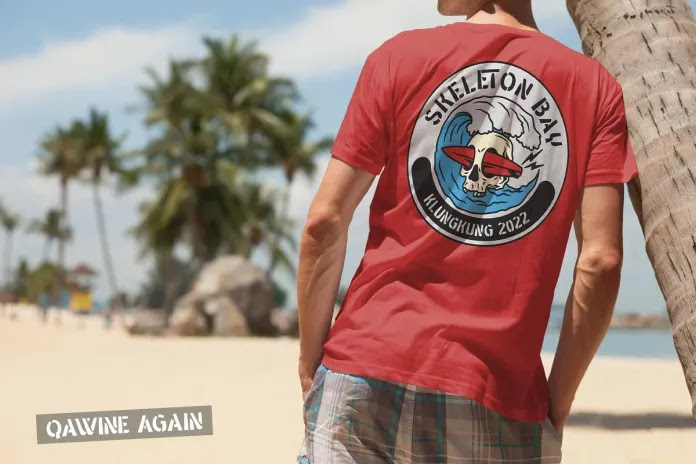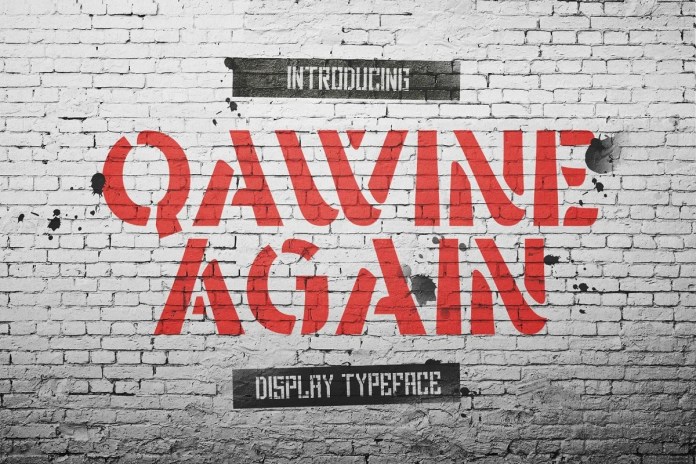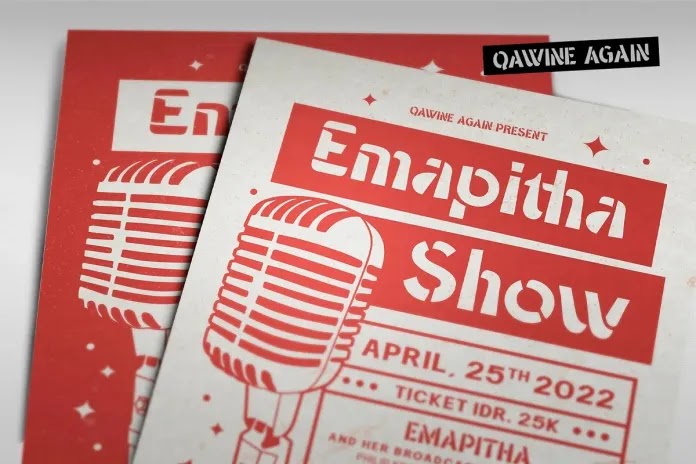
This is a vintage beautiful display sans font from designer Alit Design. Irregular dynamic shapes but impressively bold and unique make the font “Qawine Again” different and steal attention.